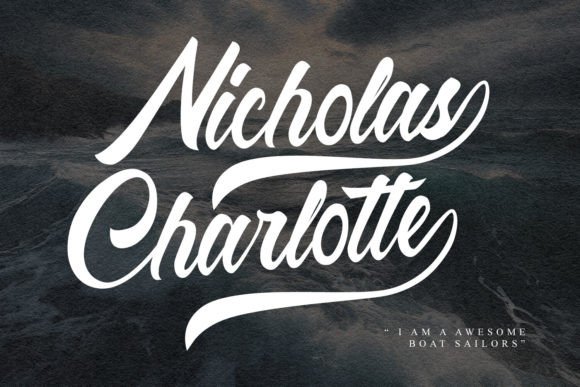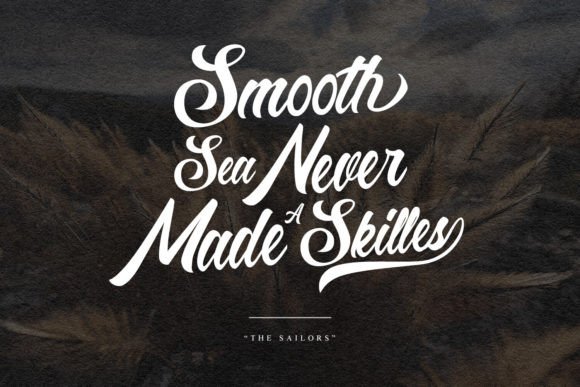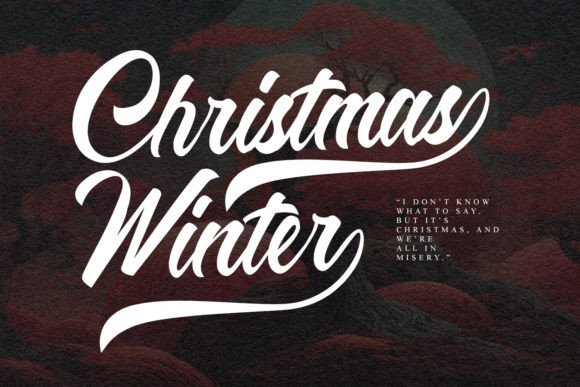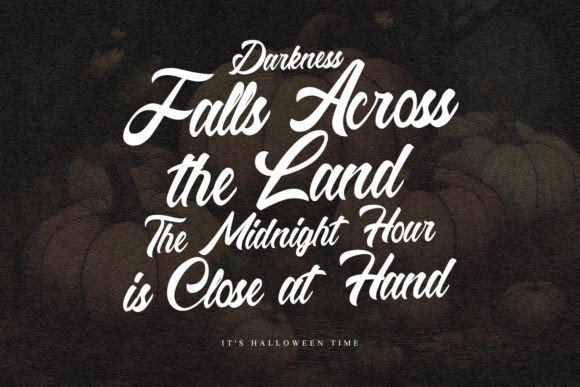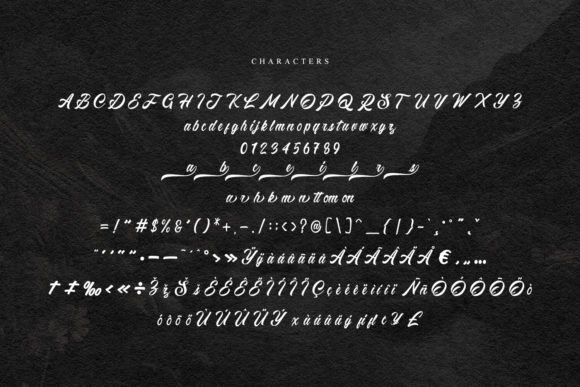
Introduction to Sailors Batavia Font
Sailors Batavia is a beautiful script font with a smooth, flowing style.
It has elegant, hand-drawn letters that are perfect for creating stylish designs This font works well for logos, invitations, and decorative text, giving a classy and artistic look to your projects.
Key Features of Sailors Batavia Font